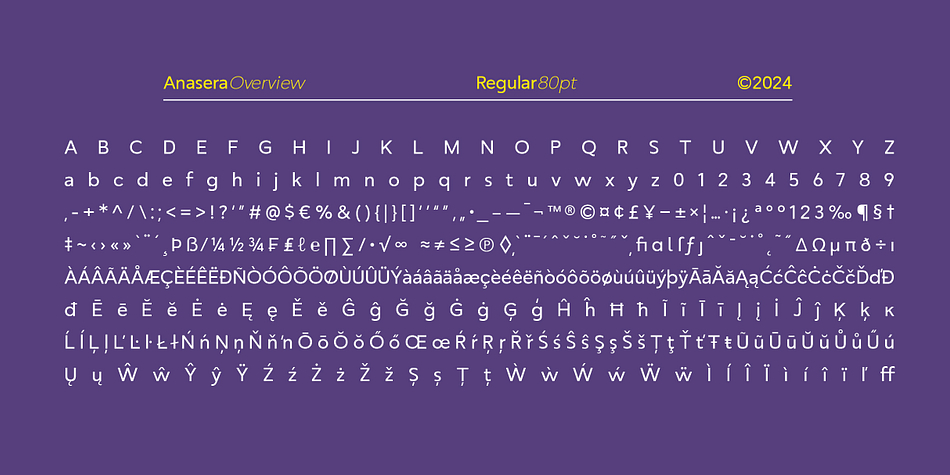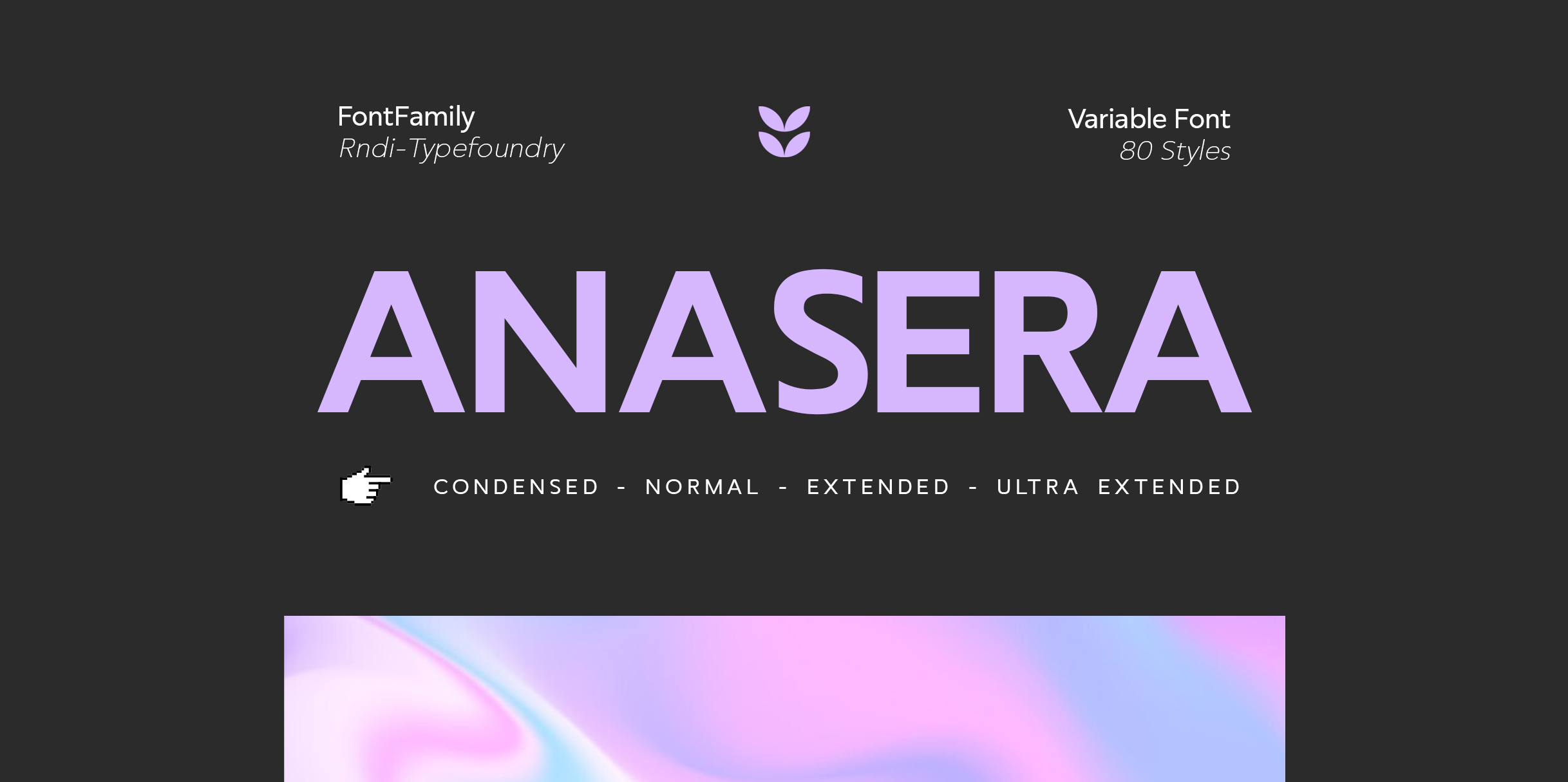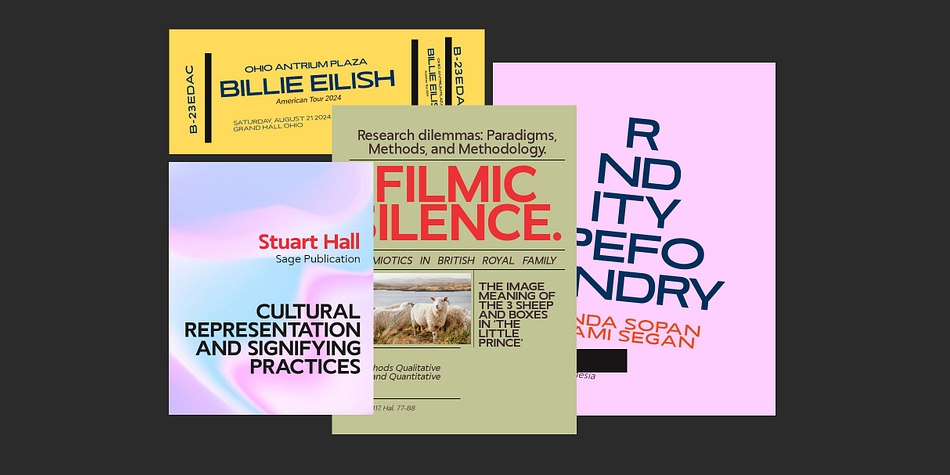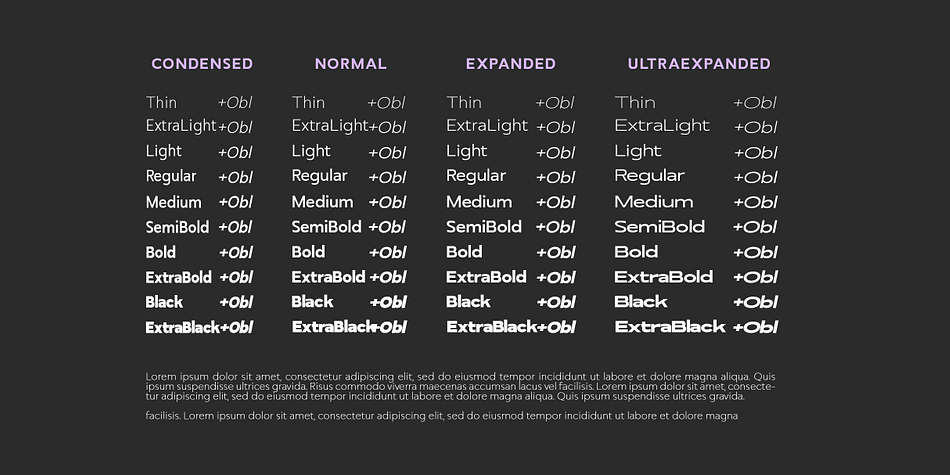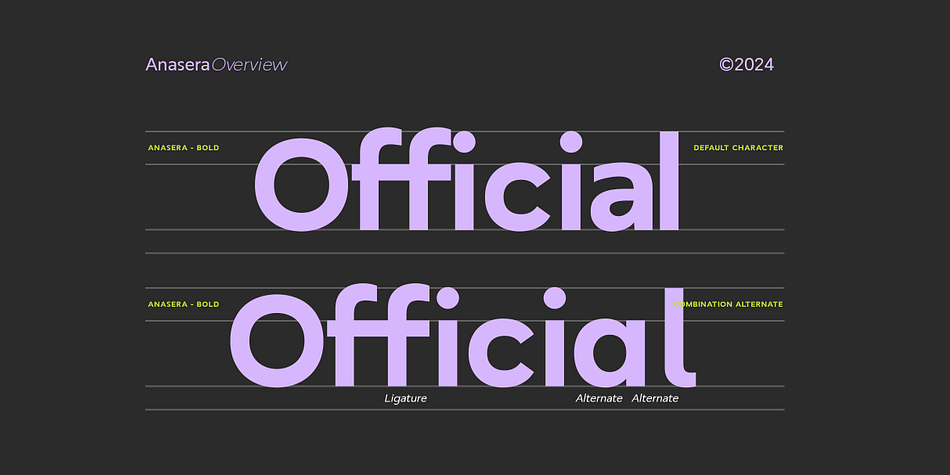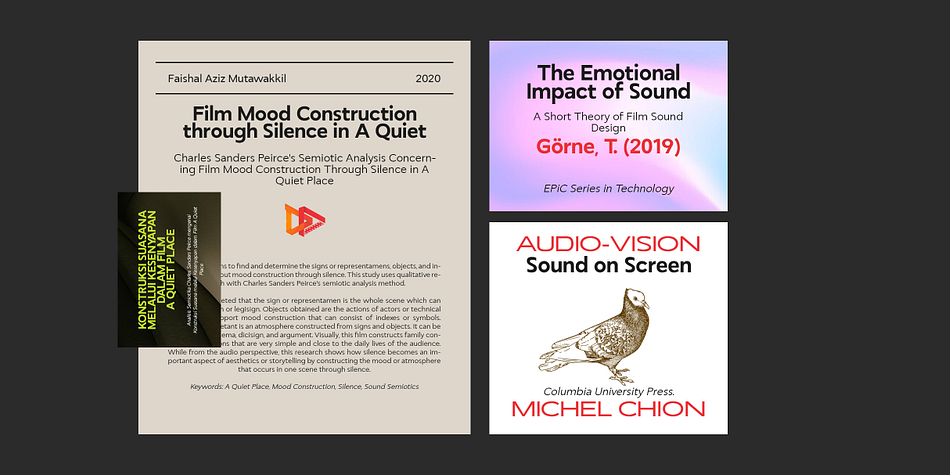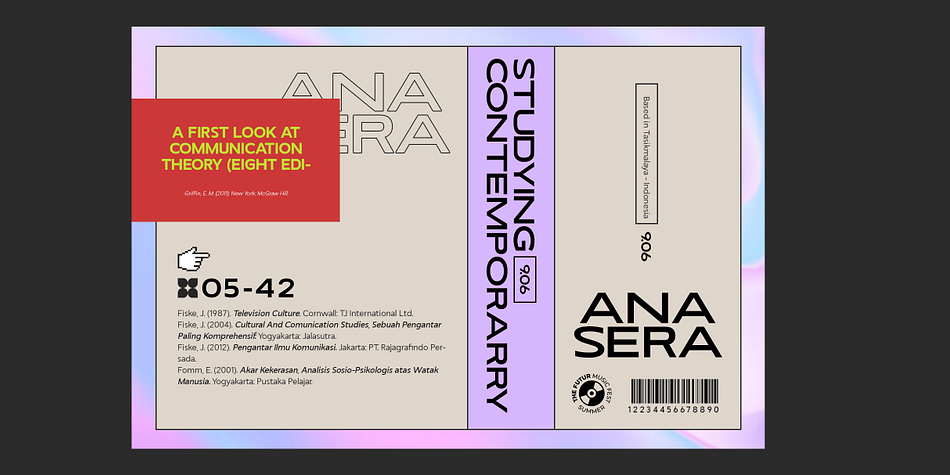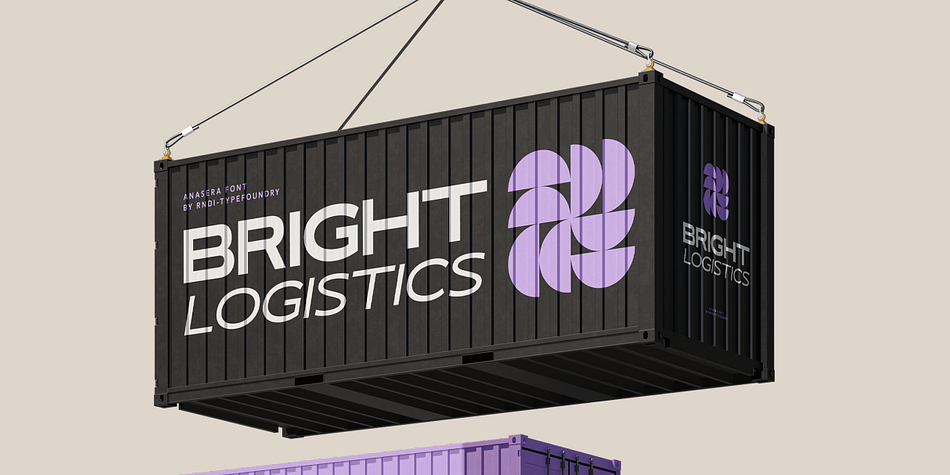
RNDI Anasera
RNDI Anasera is a sans serif font family. This typeface has eighty styles and was published by RNDI Type Foundry.
RNDI Anasera is a modern sans-serif font family designed for versatility and readability. With clean lines and a contemporary style, Anasera is perfect for a wide range of applications, from digital interfaces to print media. Its well-balanced letterforms and various weights make it ideal for both body text and headings, ensuring clarity and elegance in any design. RNDI Anasera brings a professional and polished touch to your projects, making it a go-to choice for designers seeking a functional yet stylish typeface.